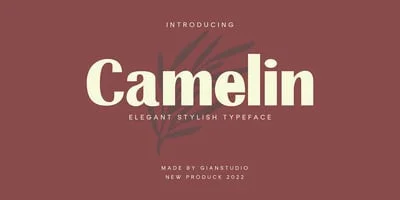
Camelin Font
Camelin Font is perfect for desert adventure tourism branding, Middle Eastern cultural exhibitions, safari expedition marketing, arid landscape photography portfolios, endurance sports event promotions, and exotic travel destination campaigns. Its resilient character makes it ideal for desert tour operators, camel trekking companies, Middle Eastern restaurants, adventure travel agencies, and any application requiring enduring typography that conveys desert survival, nomadic wisdom, and the remarkable resilience of life in harsh, arid environments.
Camelin Font is exciting because it embodies the extraordinary endurance and adaptive resilience of desert life through steadily crafted letterforms that reflect the patient strength and survival wisdom of creatures perfectly adapted to harsh desert conditions. Its enduring proportions and desert-inspired details evoke the quiet dignity of nomadic cultures and the impressive ability to thrive in challenging environments, making it perfect for brands celebrating resilience and adaptability. The font's desert character transforms communications into expressions of enduring strength.
Camelin Font family includes desert-ready weight variations typically featuring Light, Regular, Medium, and Bold options with enduring styling that maintains desert authenticity. The family often incorporates desert symbols, nomadic ornaments, and survival elements designed for adventure travel applications, providing designers with comprehensive tools for creating authentic, desert-focused typographic compositions.
When selecting desert adventure typography solutions, Camelin Font represents an exceptional choice for endurance and travel projects. This resilient typeface brings instant desert authenticity to any design, making it invaluable for adventure tourism companies, desert expedition organizers, and travel brands celebrating harsh environment exploration. Whether you're developing desert safari branding, creating Middle Eastern cultural materials, or designing endurance event promotions, Camelin Font provides the desert resilience and survival authenticity essential for capturing the spirit of desert adventure in today's extreme travel marketplace.